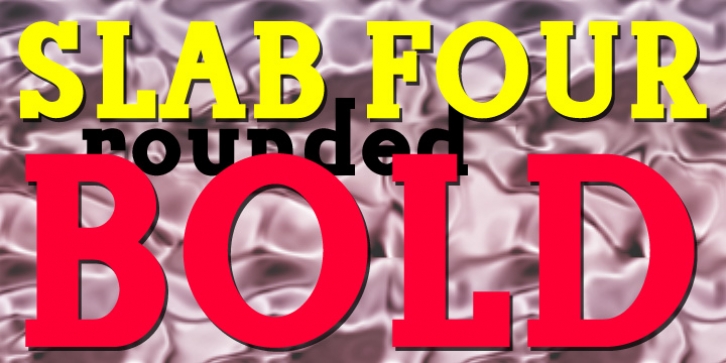
Slab Four Rounded Bold downloadDesigner: Jordan Davies
Publisher: Wooden Type Fonts
An original slab serif design inspired by the slab serif designs of the 19th century, with a modern geometric look, bold version.